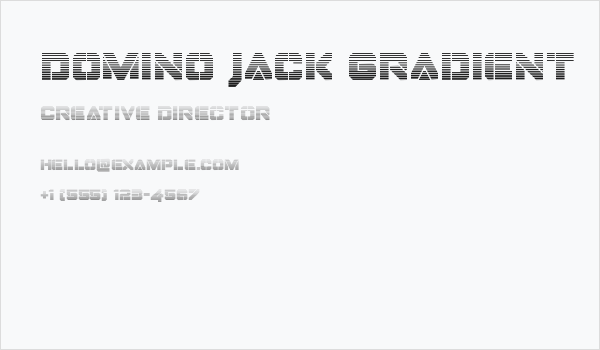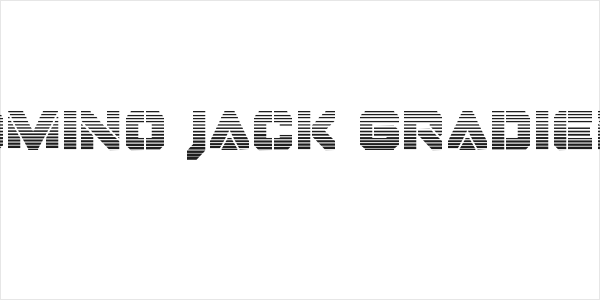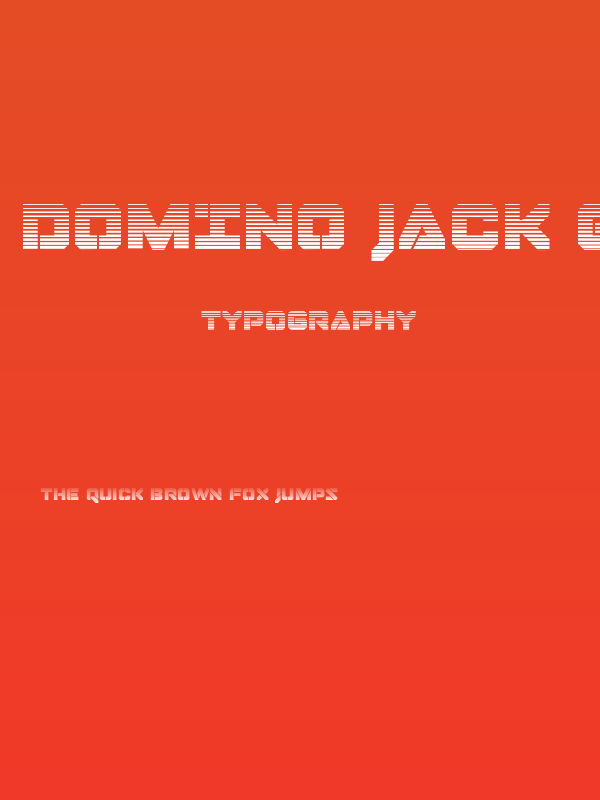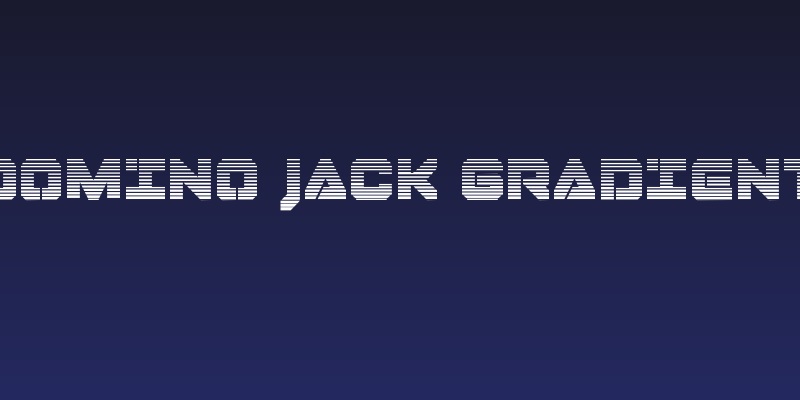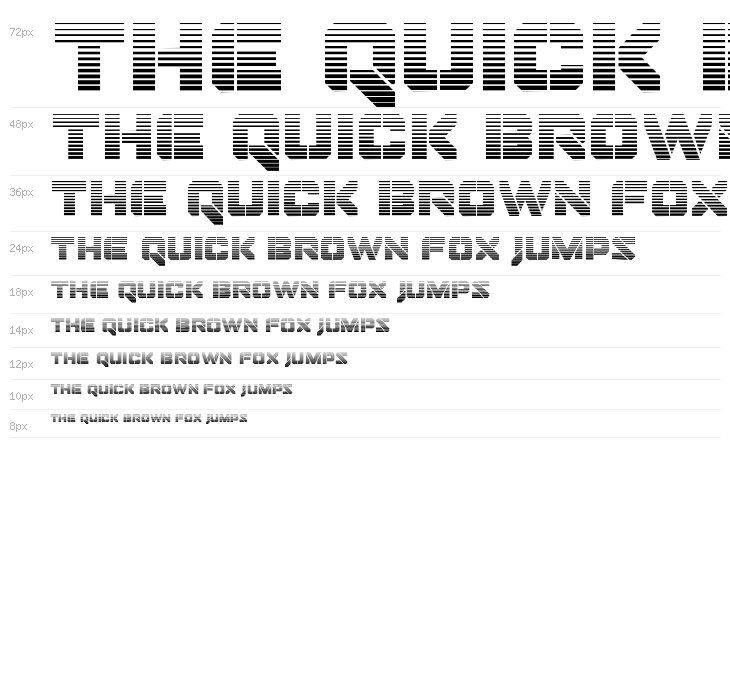
Domino Jack Gradient Font
Domino Jack Gradient Description
This font features a bold, geometric design with a unique striped pattern running horizontally across each character. The uppercase and lowercase letters maintain a consistent style, characterized by sharp angles and a modern, futuristic aesthetic. The numbers and special characters follow the same design principles, ensuring uniformity across all glyphs. The font's distinct appearance makes it ideal for attention-grabbing headlines or branding that requires a contemporary edge. Its structured form and decorative elements suggest a sense of movement and energy, making it suitable for dynamic visual projects.
| Proposed Projects | Ideal for futuristic branding, tech-related designs, and dynamic advertising campaigns. |